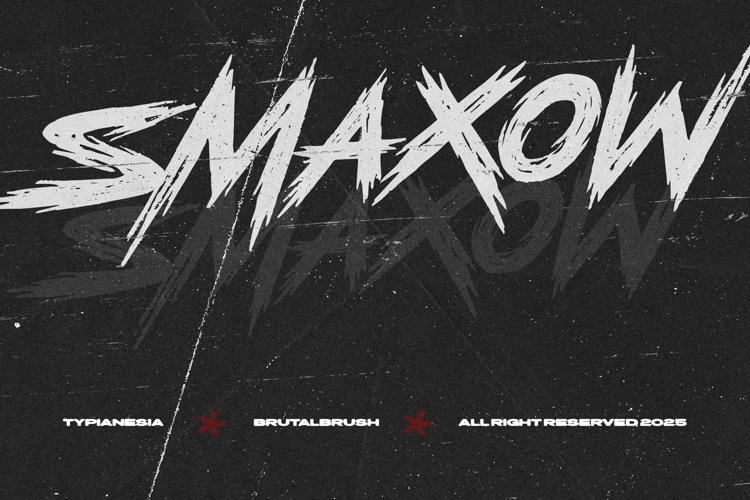
Smaxow - Brutal Wild Brush Font - Aggressive Urban Street Font
Smaxow is an aggressive and brutal wild brush font designed to deliver maximum impact with a raw, expressive style. This typeface captures the essence of street culture and cyberpunk rebellion. Inspired by underground graffiti and aggressive brushwork, Smaxow provides a powerful presence perfect for sports branding, esports game titles, music merchandise, album covers, bold logo creations, horror themes, hardcore branding, and any project that demands a dominant, high-octane look.